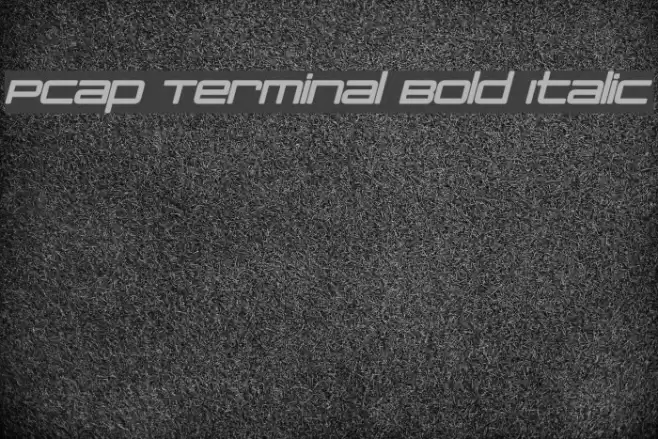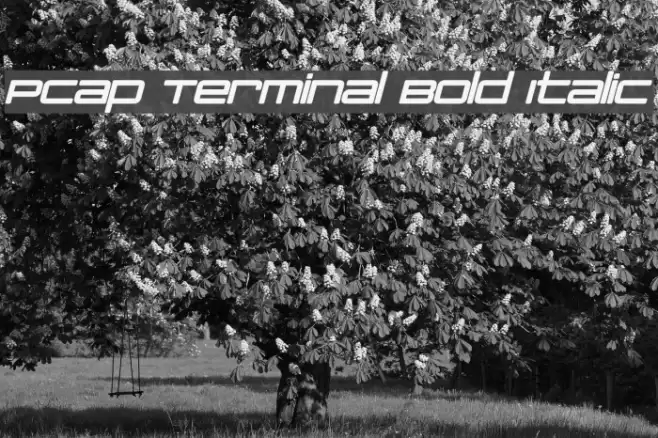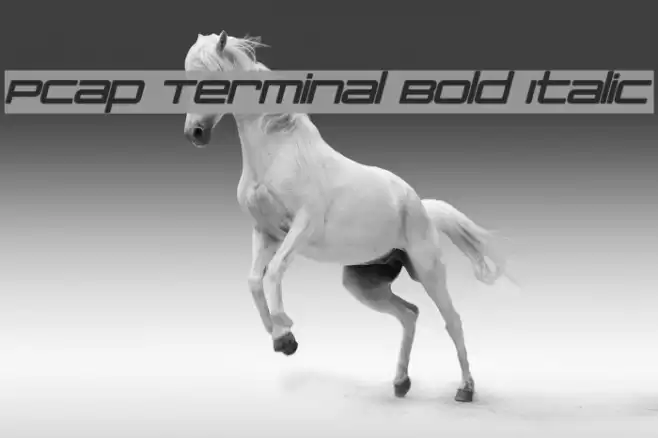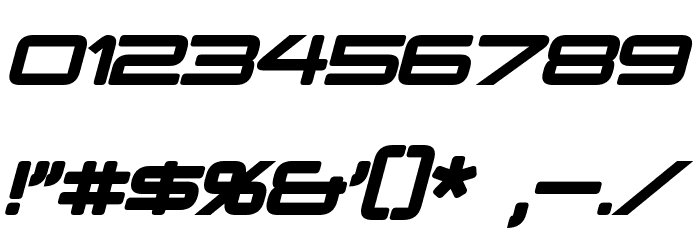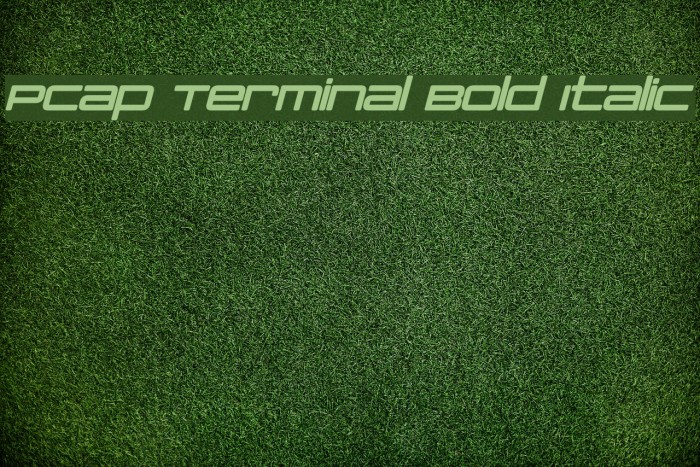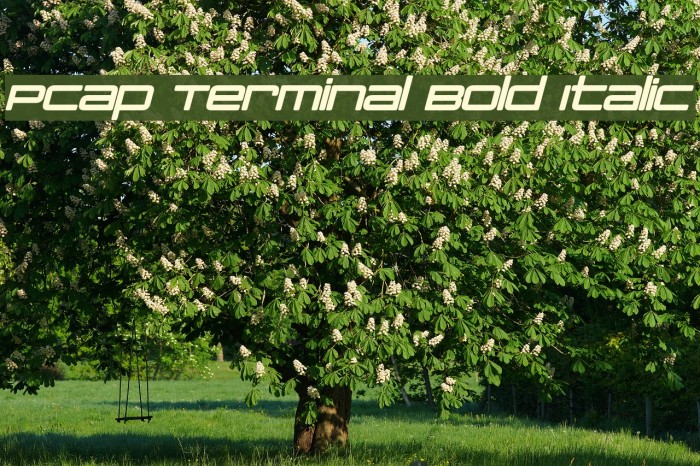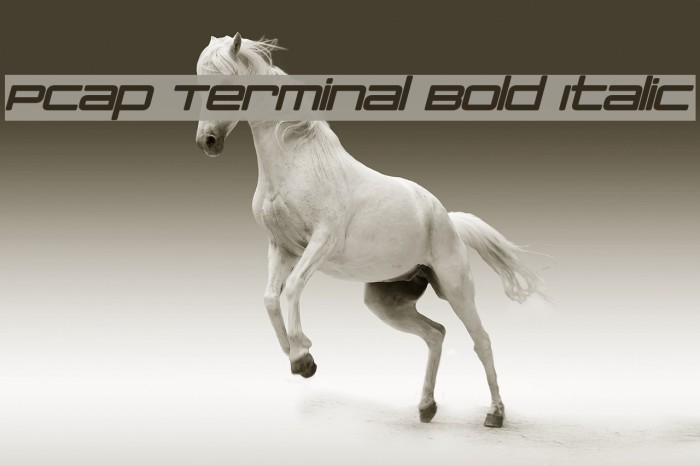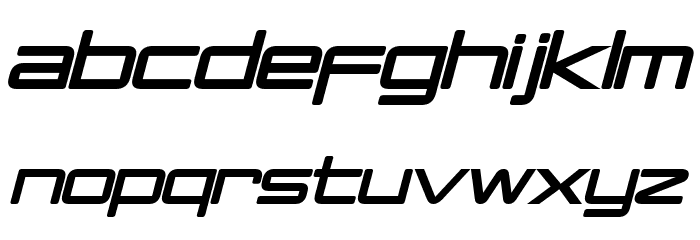
PCap Terminal Bold Italic Font
PCap Terminal Bold Italic Description
This font features a bold and italicized style with a futuristic and technical appearance. The characters are slightly condensed, giving a sleek and modern look. The strokes are consistent in thickness, providing a medium contrast that enhances readability while maintaining a dynamic and energetic feel. The angular design of the letters, combined with the italic slant, suggests movement and speed, making it suitable for technology-related projects. The font's geometric shapes and clean lines give it a contemporary edge, ideal for digital interfaces and modern branding.
A bold, italicized font with a futuristic and technical style from Uncategorized fonts.
- Proposed Projects: Ideal for technology branding, digital interfaces, video game titles, and modern advertising.
- Use Case: Headlines, Logos, Digital interfaces